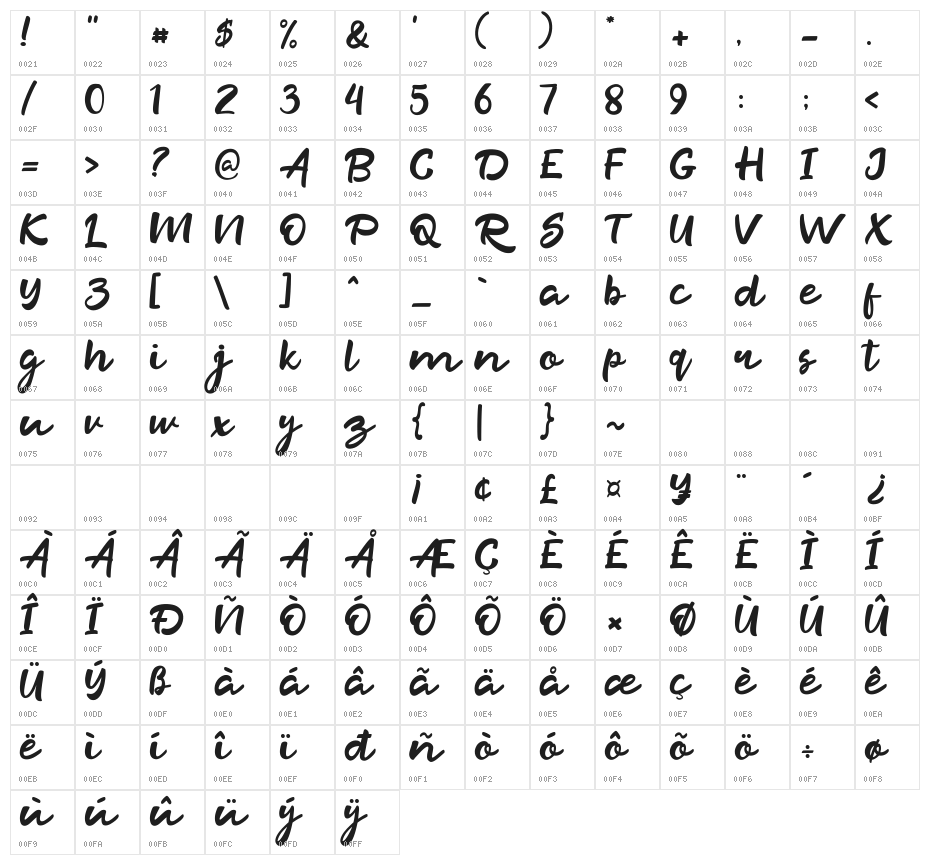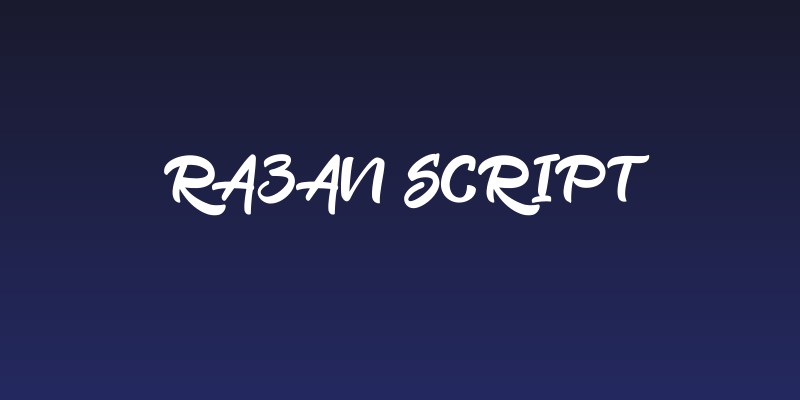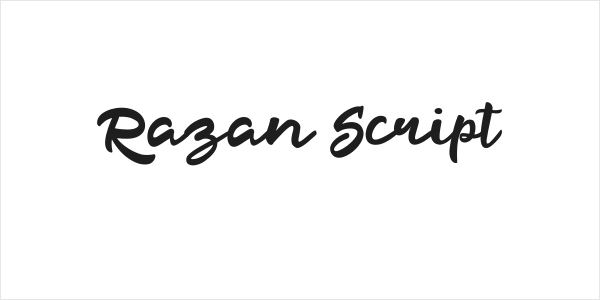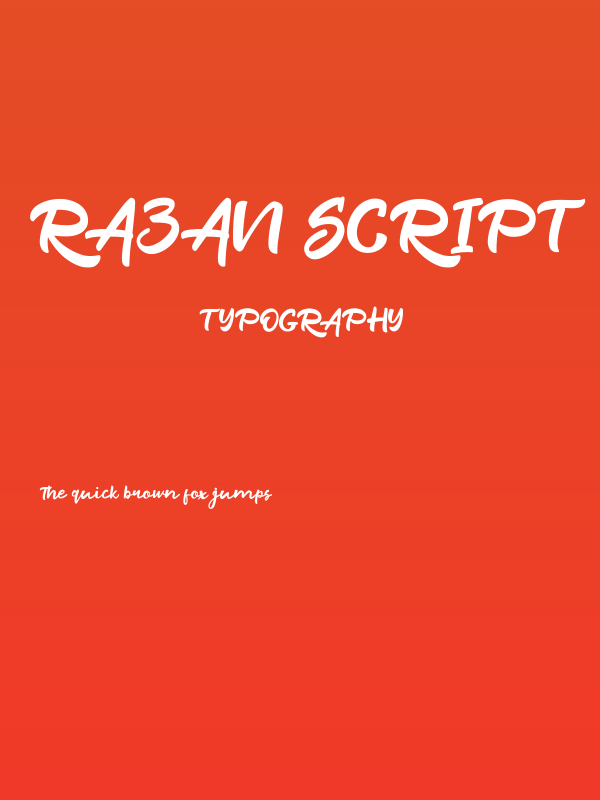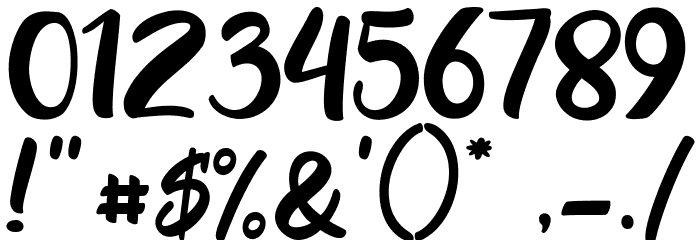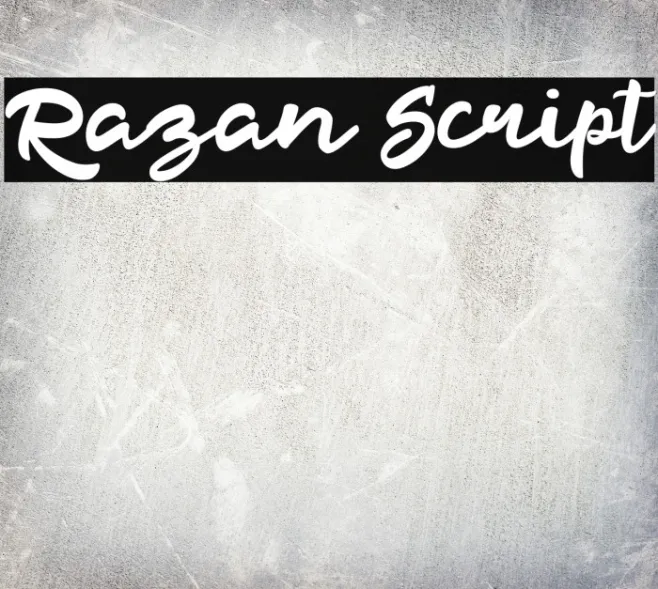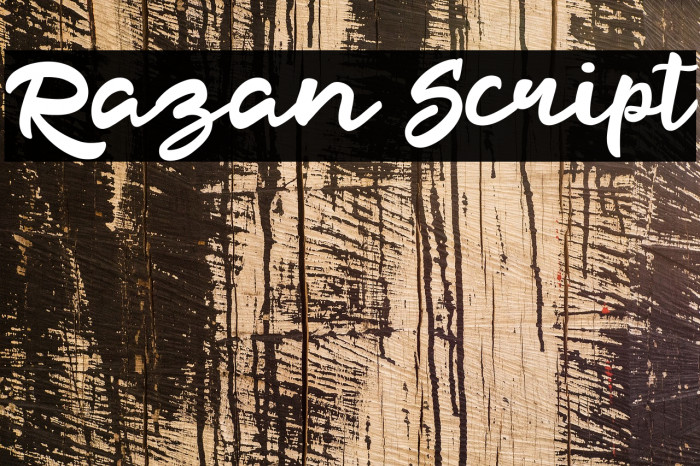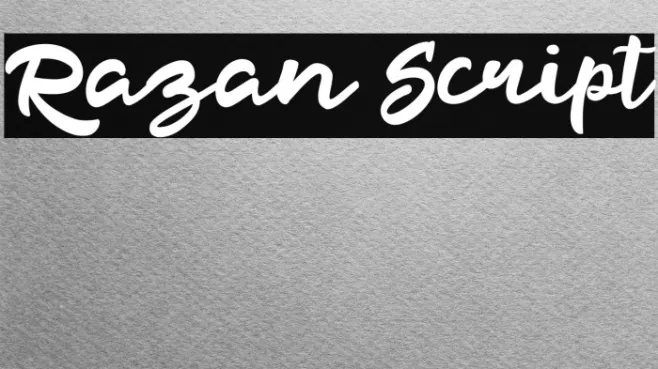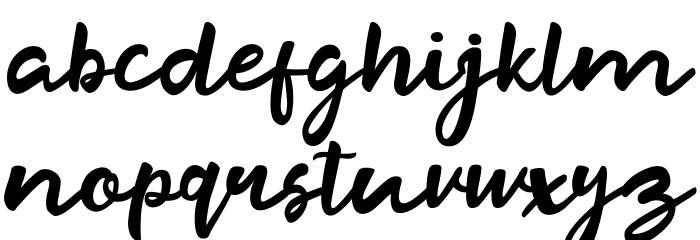
Razan Script Font
Razan Script Description
This font features a bold and expressive script style, characterized by its fluid and dynamic strokes. The uppercase letters exhibit a strong presence with their slightly slanted and connected forms, while the lowercase letters maintain a consistent flow, enhancing readability. The numerals are bold and rounded, complementing the overall style. Special characters are creatively integrated, adding a playful touch. This font exudes a sense of modern elegance and is suitable for projects that require a personal and artistic flair.
| Use Case | Logos, Headlines, Invitations |
| Proposed Projects | Ideal for branding, invitations, greeting cards, and artistic projects that require a personal touch. |